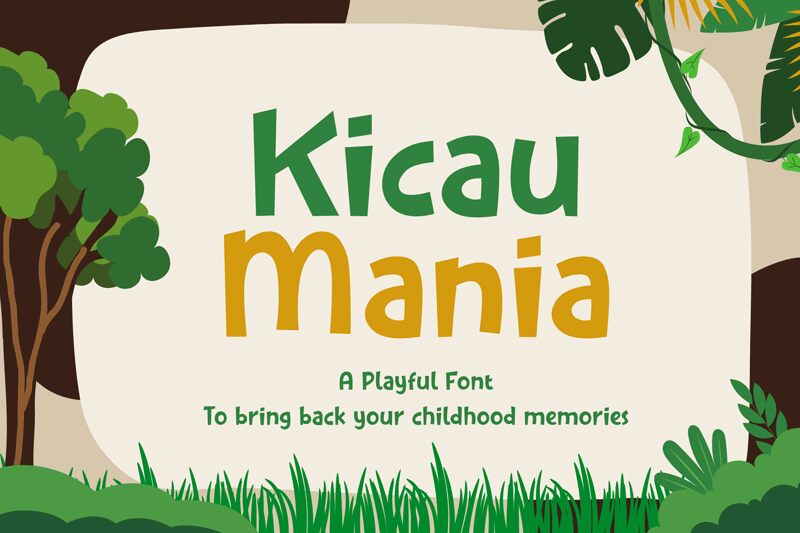
Kicau Mania font by Sronstudio brings a vibrant, playful energy to any project with its cartoon-inspired design. This display font boasts distinctive, bold lines and an animated style that captures attention instantly. Its cheerful and quirky appearance makes it ideal for children's books, playful branding, and eye-catching posters. Whether you're looking to add a splash of personality or create an engaging headline, Kicau Mania ensures your text stands out.